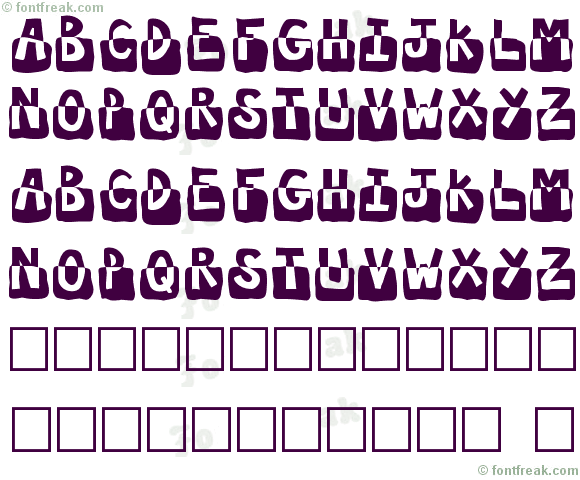
Submerged
About Submerged
The Submerged font by Divide By Zero is a unique display typeface that captures attention with its playful and unconventional design. This font features a distinctive irregularity in its letterforms, giving it a hand-crafted, organic feel. The stroke weight varies throughout the characters, creating a dynamic visual effect that enhances its quirky personality. The spacing between letters is intentionally loose, allowing for a bold presence that stands out in various applications. Its decorative elements contribute to a sense of whimsy, making it an excellent choice for creative projects.
Ideal use cases for the Submerged font include vibrant movie posters, eye-catching album covers, and engaging social media graphics. Its playful design also makes it suitable for children's book titles and fun branding elements for cafes or boutiques. Graphic designers and content creators looking to infuse their work with a sense of creativity and joy will find this font particularly appealing. Small business owners seeking to establish a memorable visual identity can also benefit from the Submerged font's distinctive characteristics.
What sets the Submerged font apart is its ability to convey personality and emotion, making it perfect for projects that require a touch of fun and creativity. Its freeware license allows for broad usage, providing an accessible option for those who want to enhance their designs without breaking the bank. The Submerged font free download opens up opportunities for anyone looking to add a unique flair to their work. By choosing this font, designers can create memorable and engaging visuals that resonate with their audience, making their projects truly stand out.